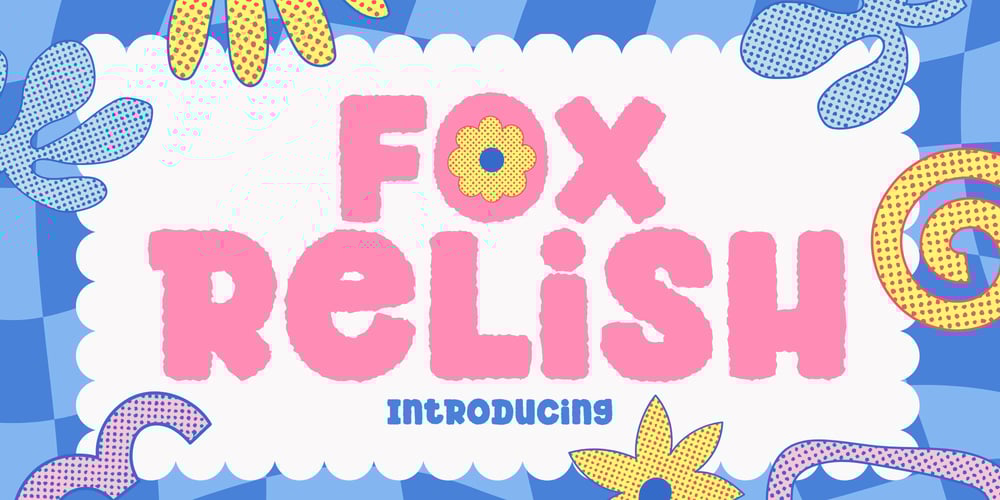
Fox Relish Font Family was designed by Rattana Rattanawan and published by Fox7. Fox Relish contains 1 styles and family package options. “Fox Relish” is a fun and playful font with a bubbly, hand-drawn style. Its chunky, rounded letters and vibrant feel make it ideal for creative projects aimed at a younger audience or for those wanting a whimsical touch. Perfect for children’s books, playful posters, or any design that needs a splash of personality and charm.